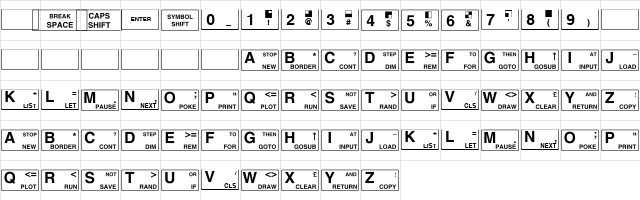
ZXSpectrum Keyboard
Design Context for ZXSpectrum Typeface
ZXSpectrum offers clean, dependable letterforms without strong stylistic allegiance, making it a practical choice for designers who need flexibility.